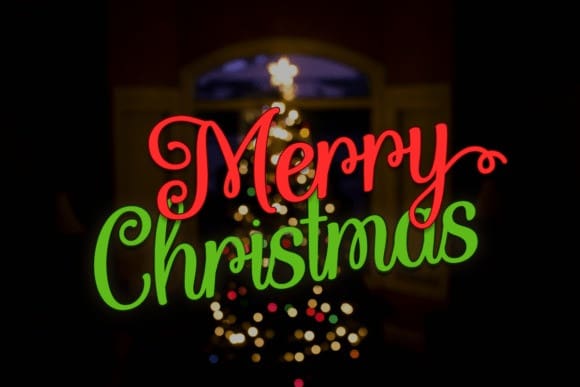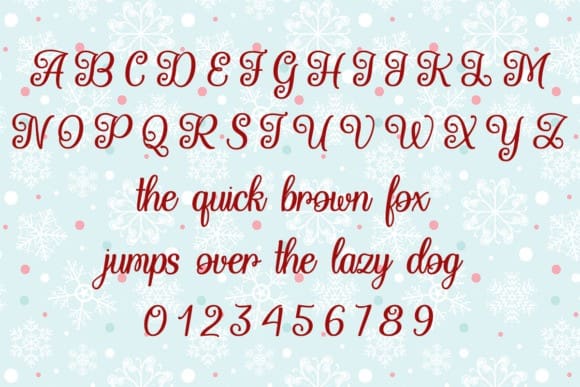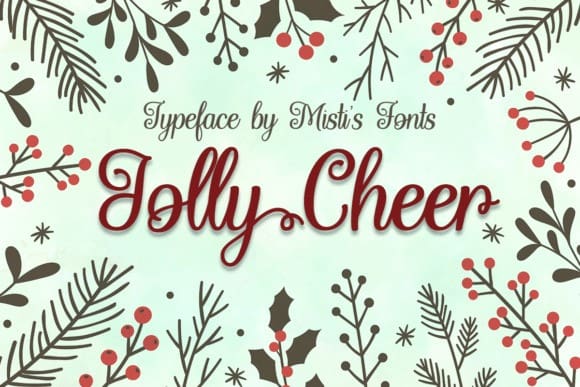
Jolly Cheer Font
Jolly Cheer Font, a playful cursive font bursting with holiday charm! Perfect for cards, gifts, decorations, and more, its whimsical style brings warmth and joy to the season. Spread cheer and create merry moments with JollyCheer!